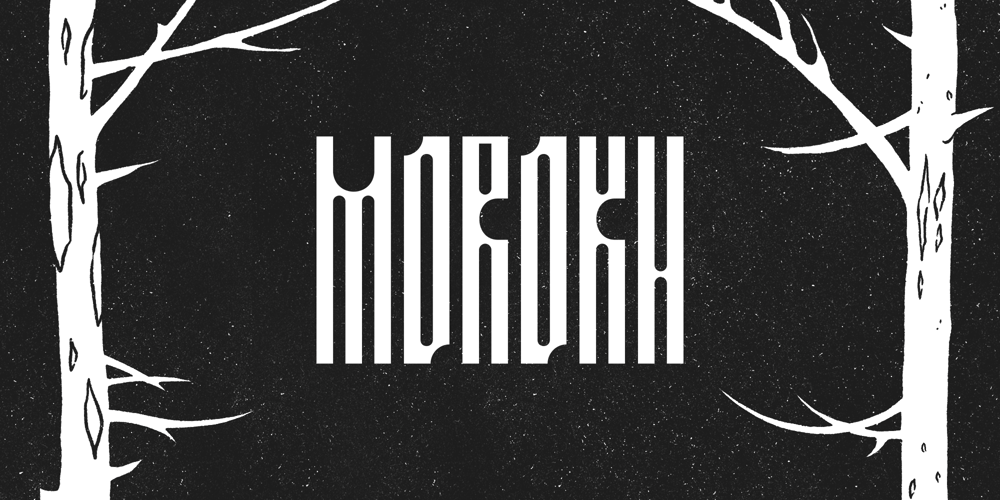
Morokh Font Family was designed by Yaroslav Dolzhenko and published by Sarcastic Raven Workshop. Morokh contains 1 styles and family package options. Morokh font is inspired by Old Slavonic Orthodox fonts and the mystical pre-Christian period. This font is ideal for bright headlines and memorable font blocks.Morokh font is a great choice for posters, banners or logos, music album covers and many other ethnic design projects.